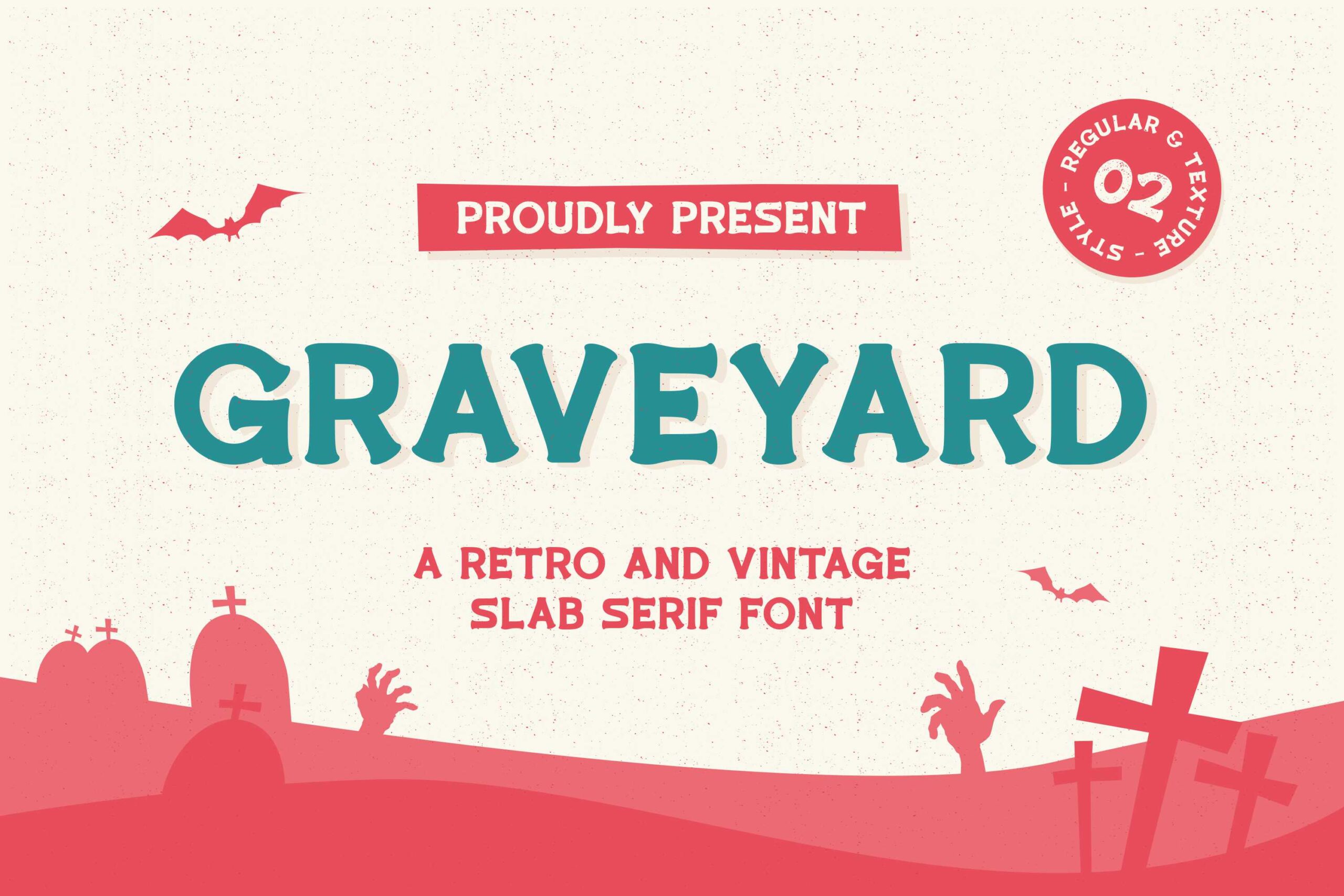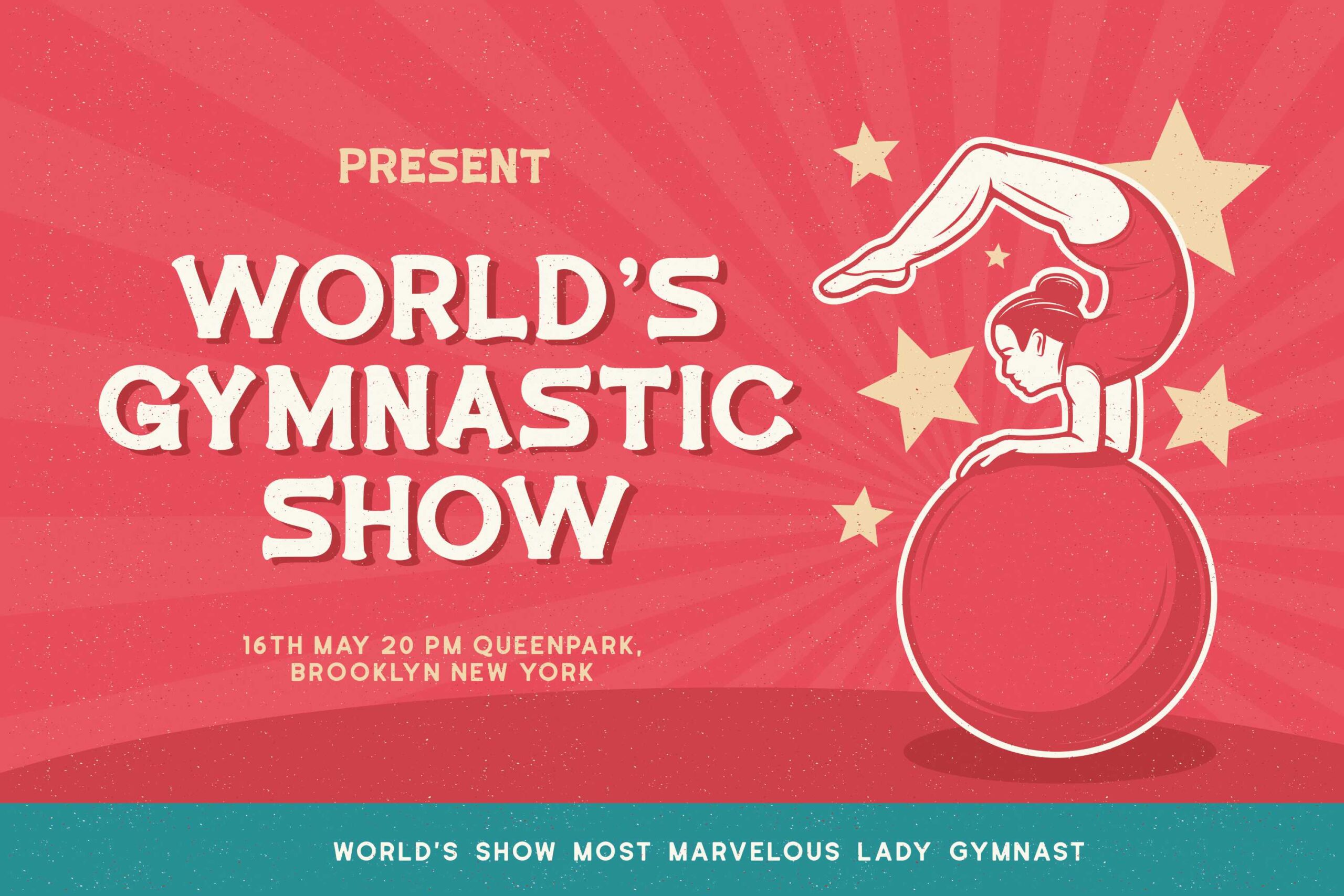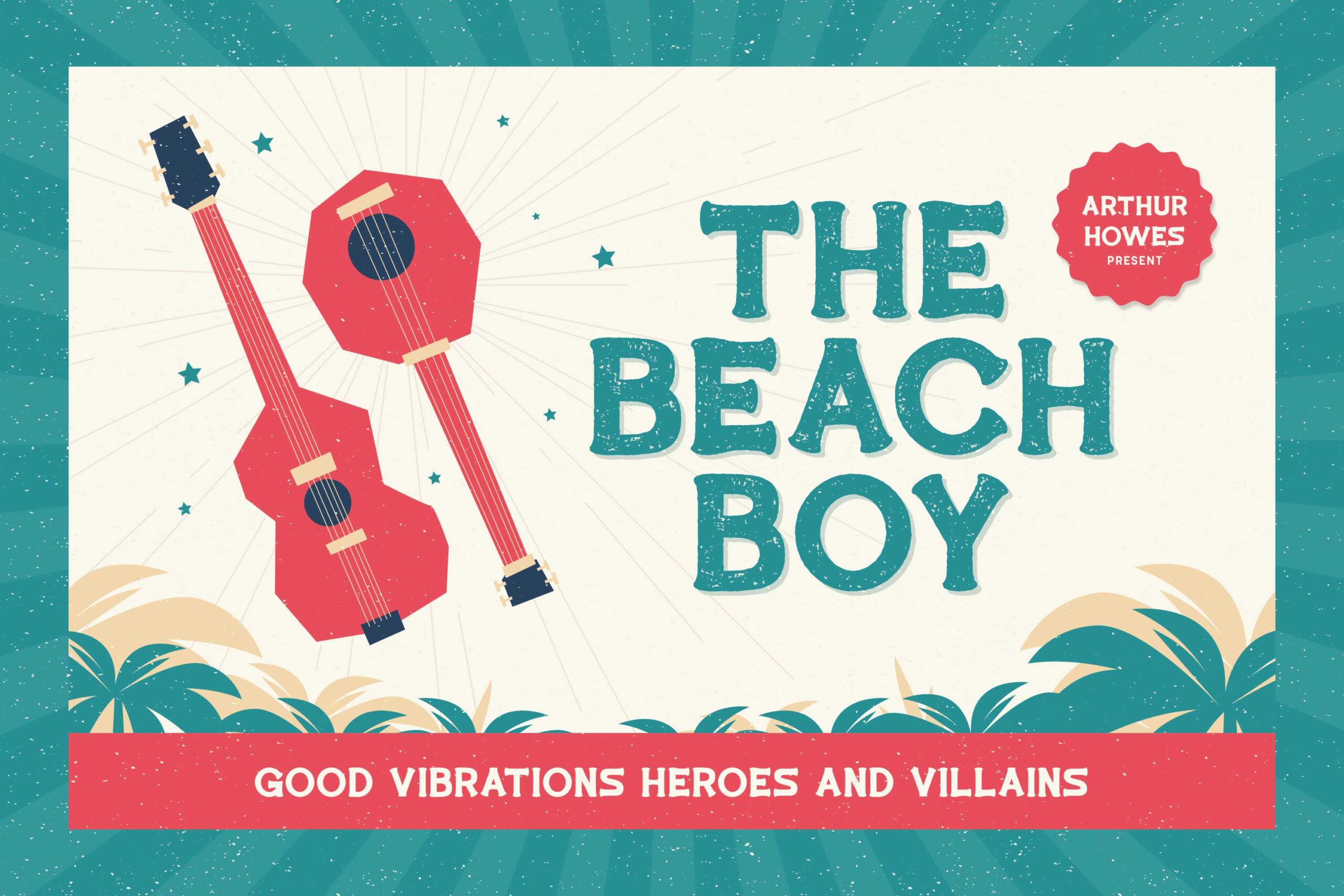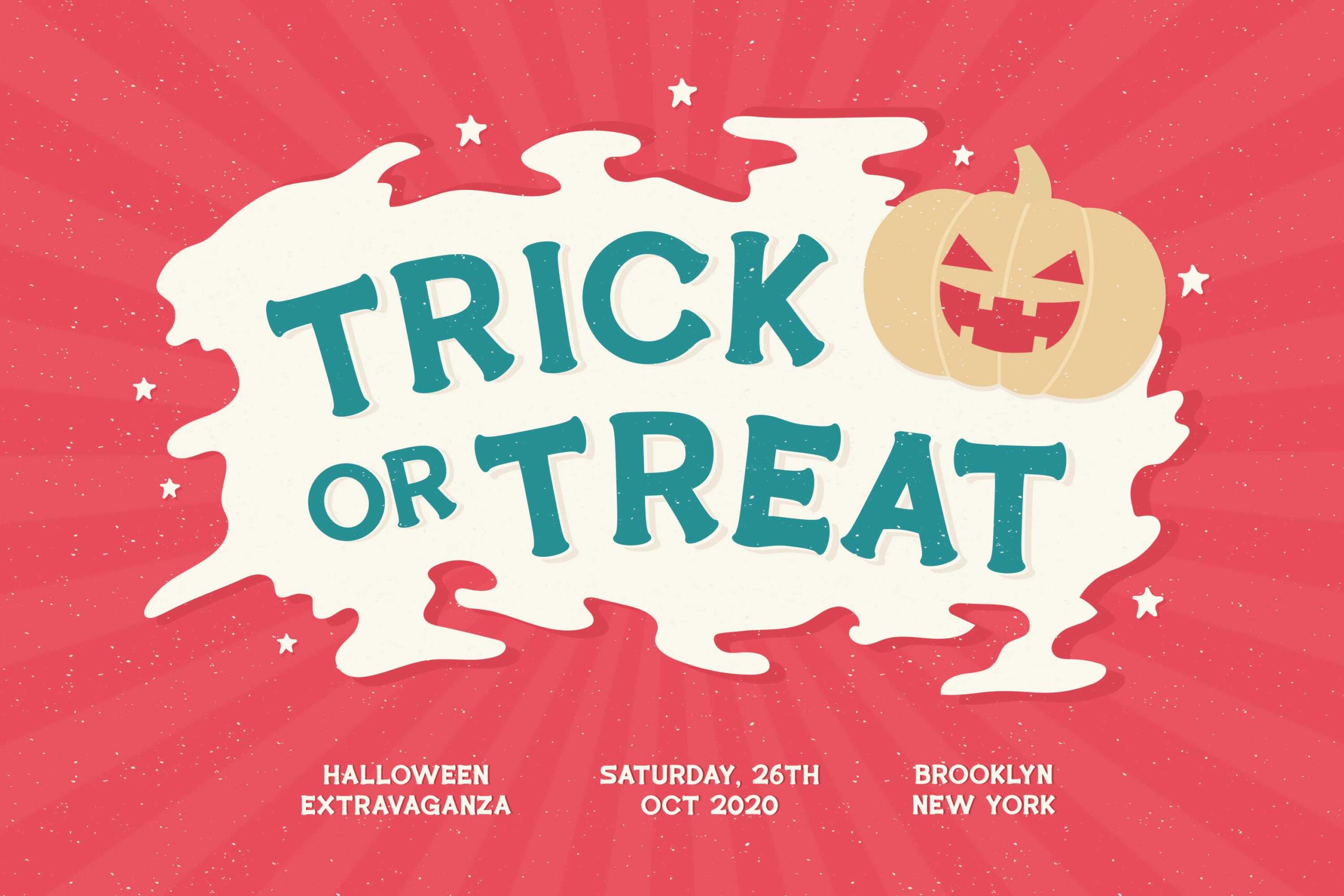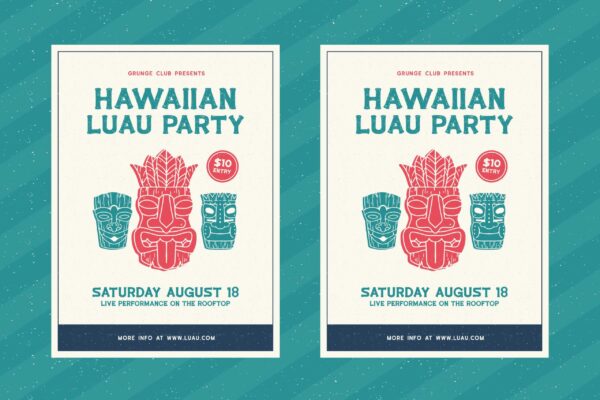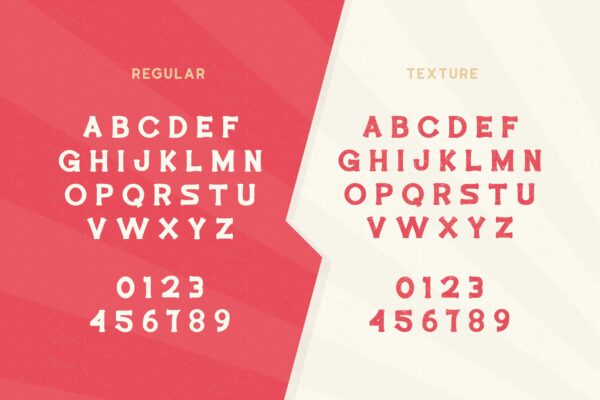
Graveyard is a retro and vintage slab serif font that brings bold character and playful nostalgia to your designs. With its chunky slab serifs and quirky letterforms, this typeface carries a distinct handcrafted vibe, perfect for projects that demand both personality and readability. It comes in two styles—regular and textured—allowing you to create either clean, strong visuals or add a rough, distressed touch for a more authentic retro feel.
Whether you’re designing posters, Halloween party invitations, music covers, branding, or vintage-themed merchandise, Graveyard delivers a unique charm that stands out. Its versatility makes it suitable for both display headlines and creative layouts, bringing a fun, lively atmosphere to any project. This font is perfect for anyone looking to mix vintage aesthetics with playful creativity.
Graveyard
Fype Co.